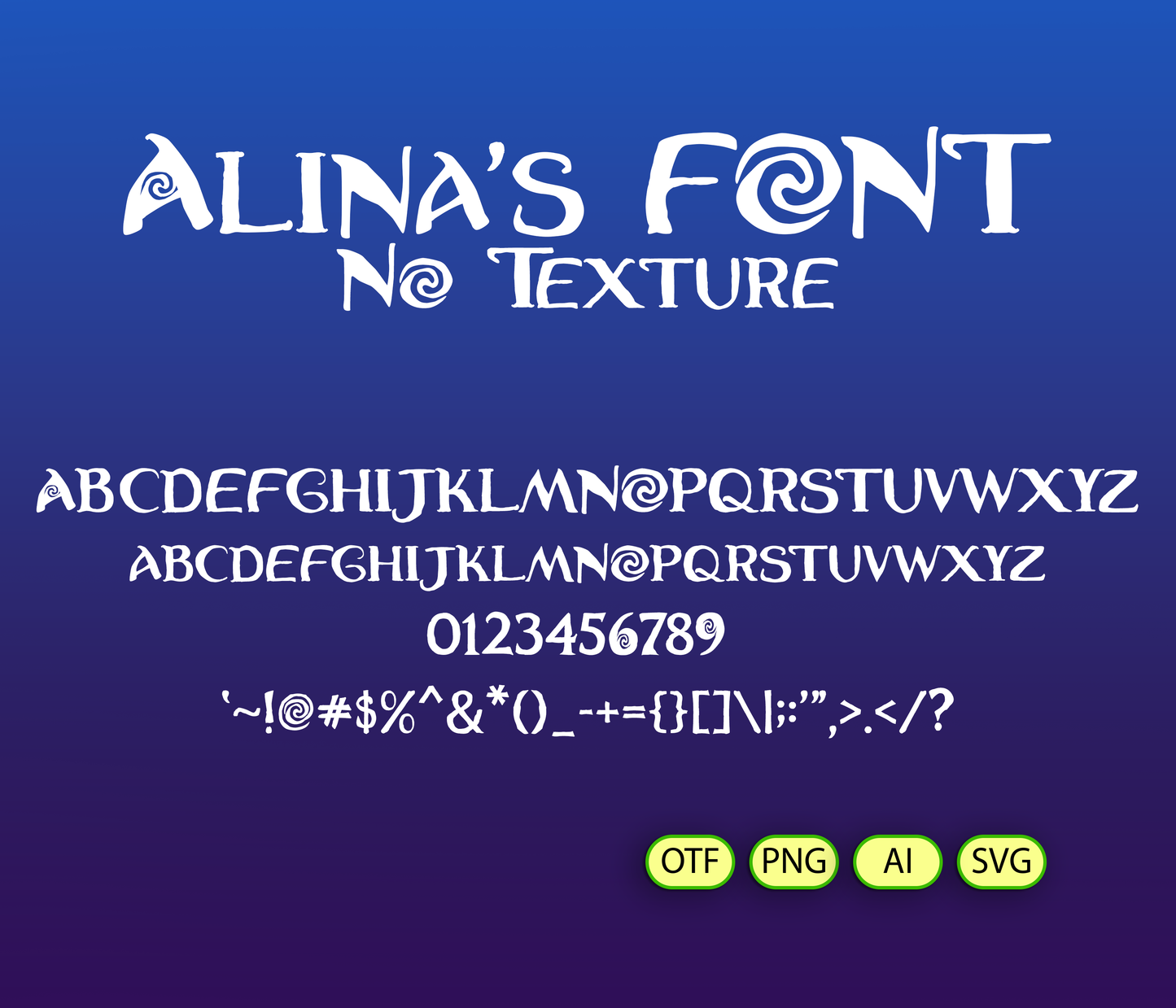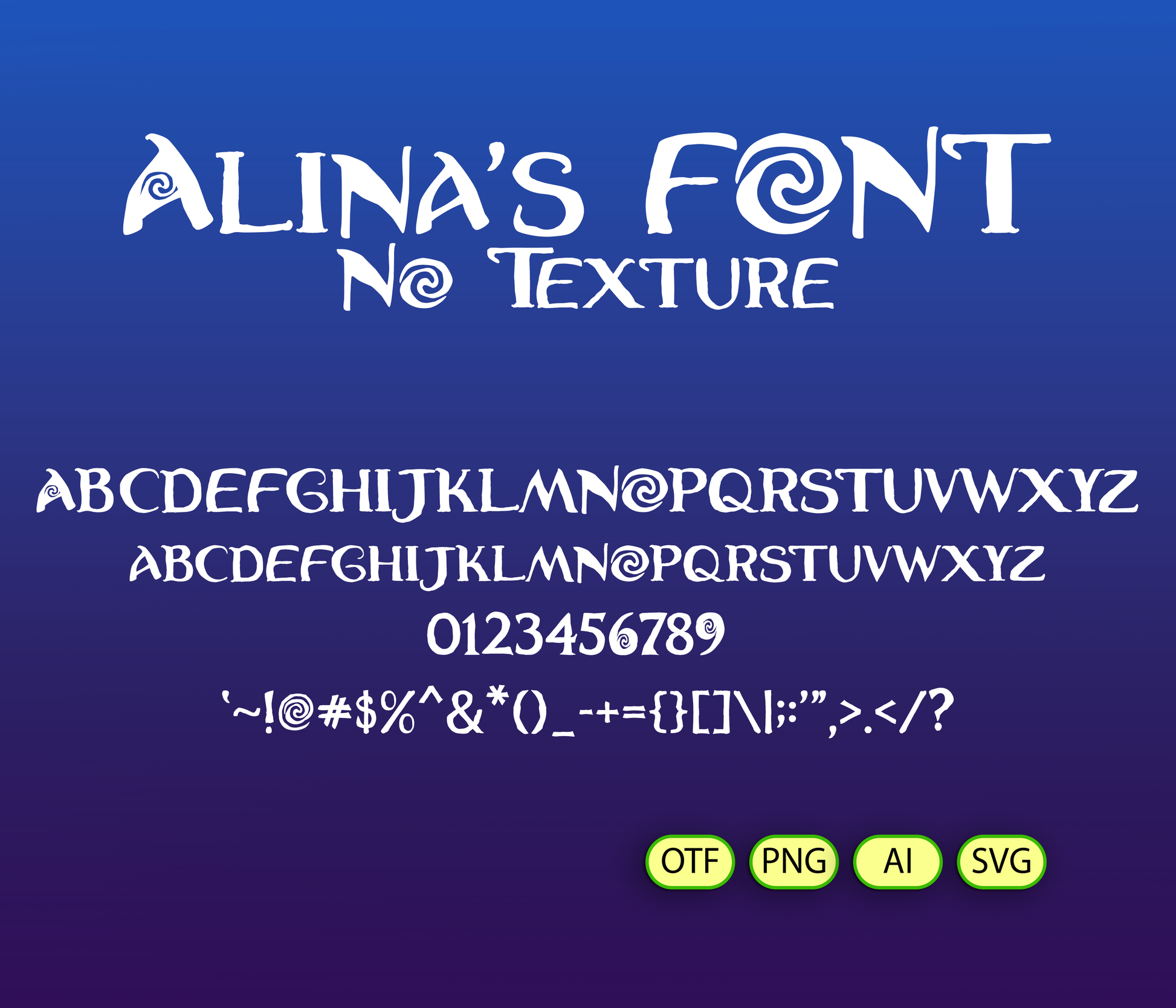
Polynesian Princess Font
Step into the vibrant world of tropical adventures, where ocean waves and island magic create unforgettable journeys. Our font captures the bold spirit of Pacific wayfinding, featuring flowing letterforms that bring to mind ancient legends and seafaring courage. Perfect for projects that aim to evoke the warmth and cultural richness of Polynesian storytelling.
What Font Captures the Spirit of Island Adventures?
Drawing inspiration from the heart of the Pacific, this typeface embodies the brave, adventurous nature of oceanic voyagers. With its fluid, dynamic design, each character reflects the flowing waves and cultural artistry that make these island stories so compelling.